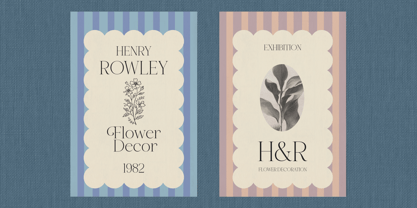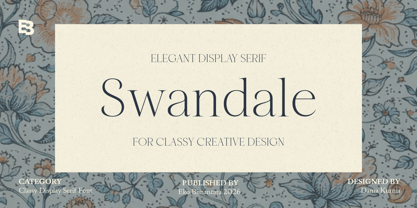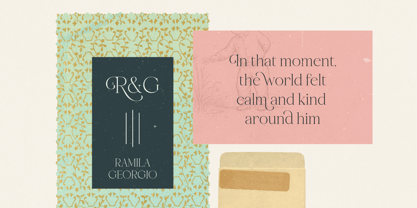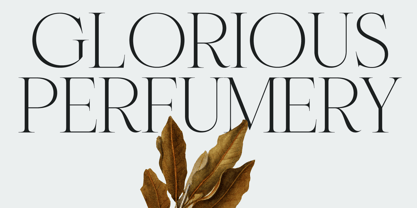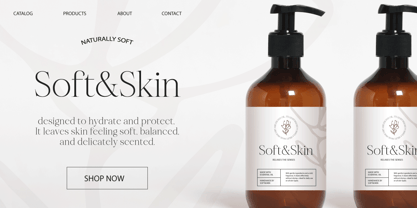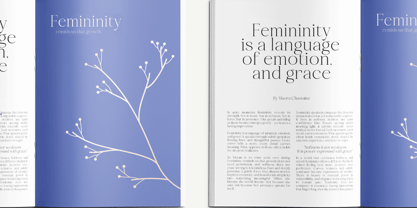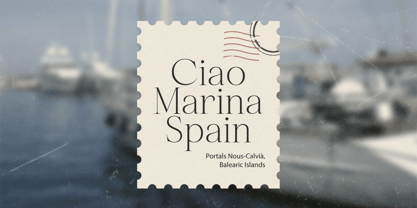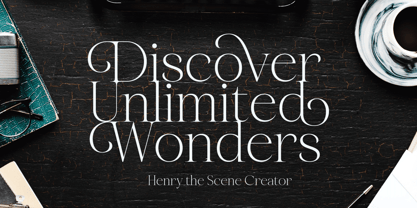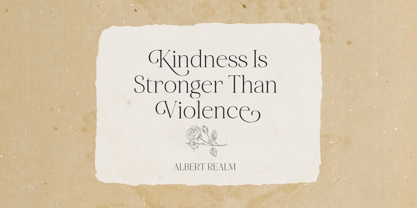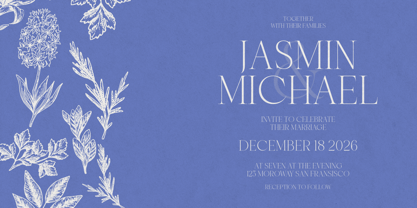
Swandale
The Swandale Font Family was designed by Eko Bimantara and published by Eko Bimantara. Swandale contains 1 styles. More about this family
Swandale is an elegant display serif typeface crafted with high contrast strokes and a smooth, clean outline that expresses beauty and refinement. Its graceful letterforms bring feminine character while maintaining a professional and polished appearance. Designed with ample OpenType features, Swandale allows flexible and expressive typography for creative projects. This typeface is beautifully suited for headings, beauty products, websites, branding, editorials, and various design purposes that require an elegant and charming visual presence.
Eko Bimantara is a type designer from Indonesia. Always has an intention to creating fonts that not only look great but also perform across a wide range of mediums and also across wide range of theme. The goal is to give designers the tools to make their projects that speaks a lot with various expression. Eko Bimantara’s fonts are featured in everything from corporate identities to street art posters, and have numerous ideas and concept ready to expand for fresh fonts for years further.